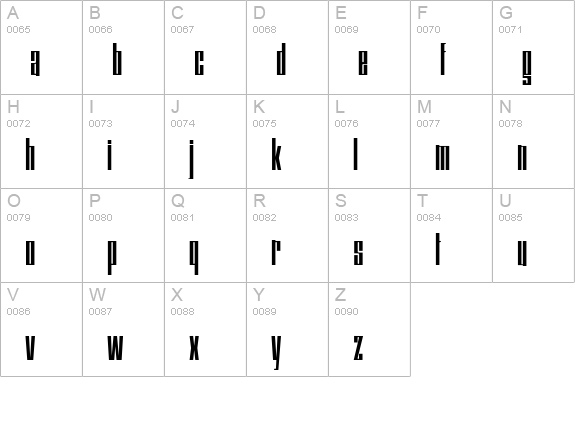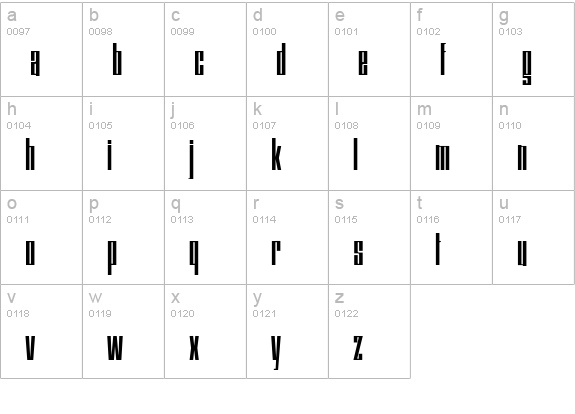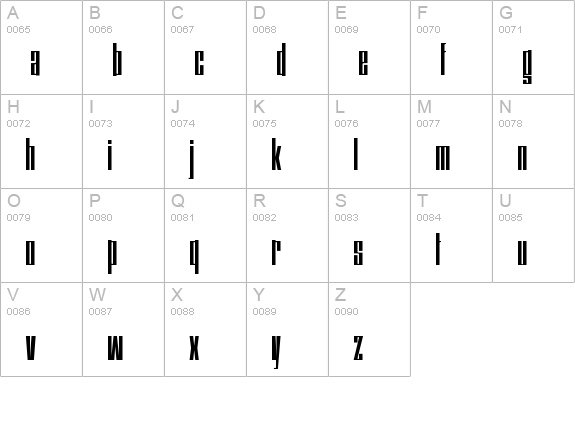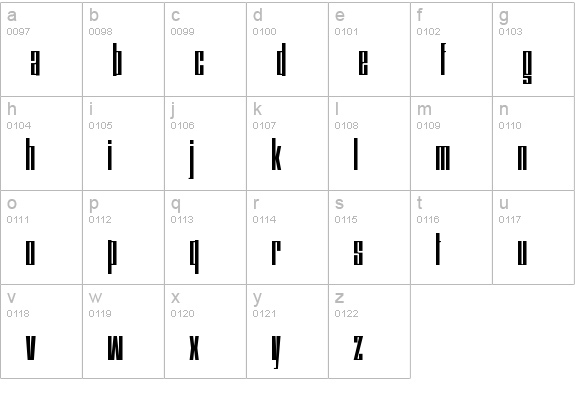
Squaresville Font Details
Introducing Squaresville, a captivating and versatile font that will bring a touch of modernity and sophistication to your design projects. With its clean lines and sharp edges, Squaresville captures the essence of contemporary design, making it perfect for a wide range of applications. This font boasts a unique combination of geometric shapes and boldness, giving it a distinct and eye-catching appearance. Whether you're creating logos, headlines, posters, or social media graphics, Squaresville will elevate your designs to new heights. But what sets Squaresville apart from other fonts is that it is not only visually stunning, but also freely available to download. Yes, you heard it right! This font can be yours without spending a dime. Simply head over to FontsMarket.com and get your hands on this incredible font. By offering Squaresville for free, we want to empower designers and creatives from all walks of life to have access to high-quality resources without breaking the bank. We believe that great design should be accessible to everyone, and Squaresville is our way of making that a reality. So, dive into the world of Squaresville and unleash your creativity. Create captivating designs that will leave a lasting impression on your audience. Download this remarkable font from FontsMarket.com today and take your design projects to the next level.